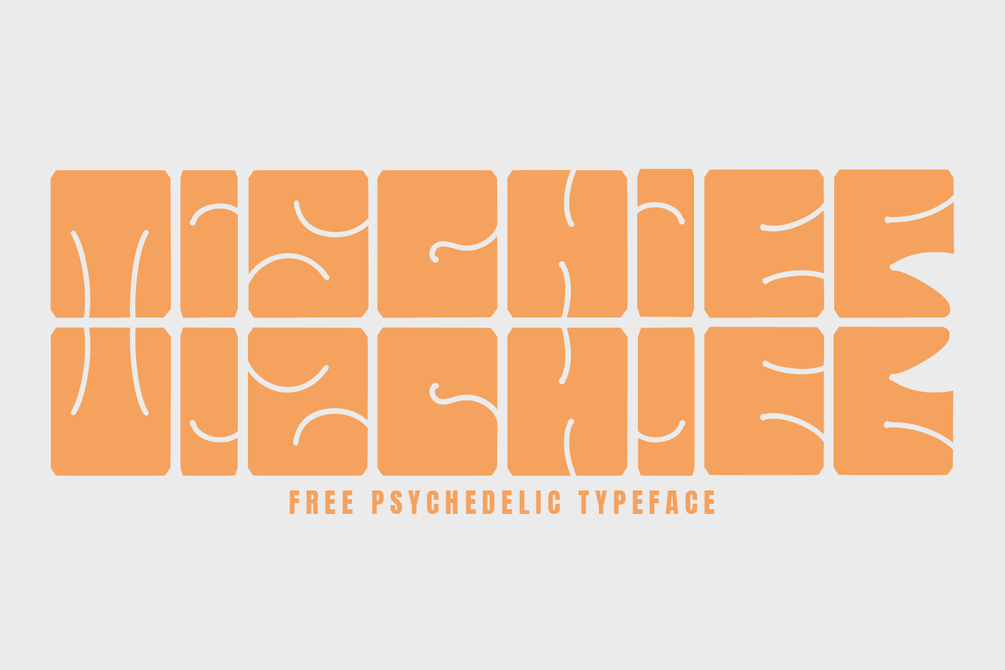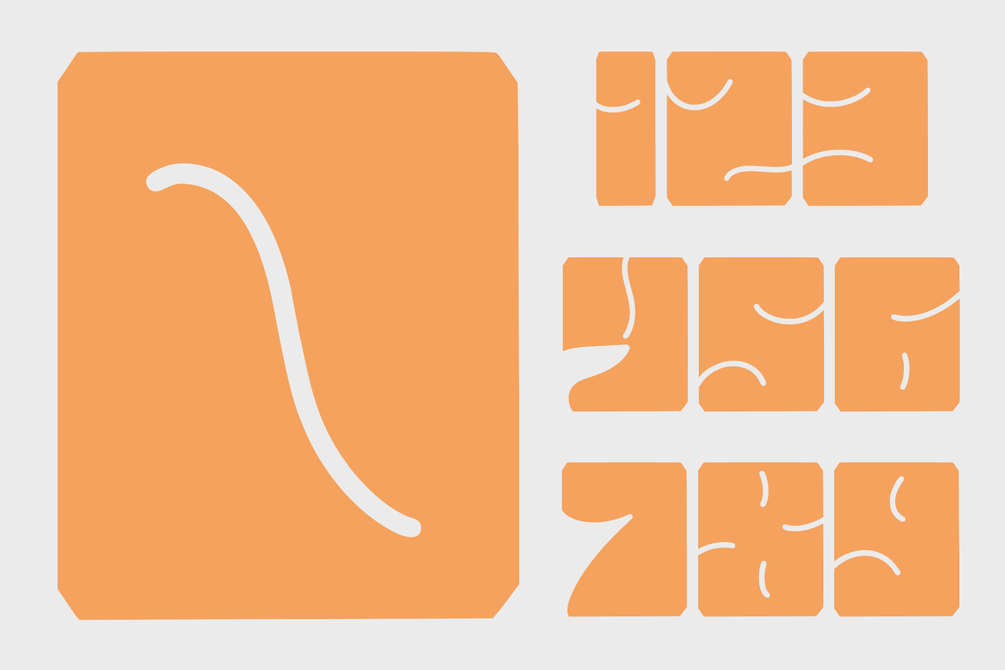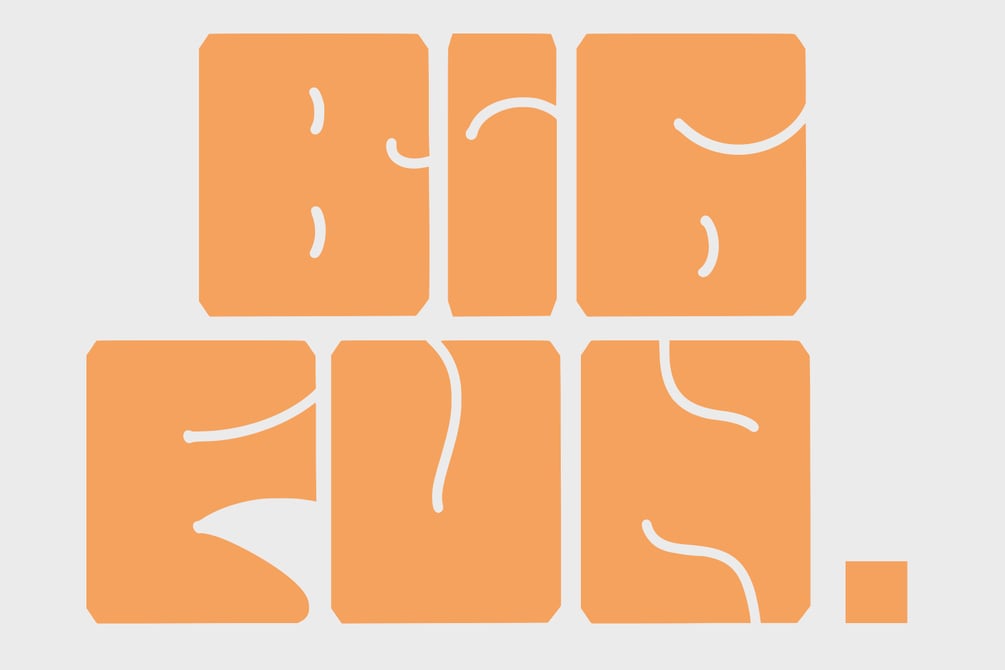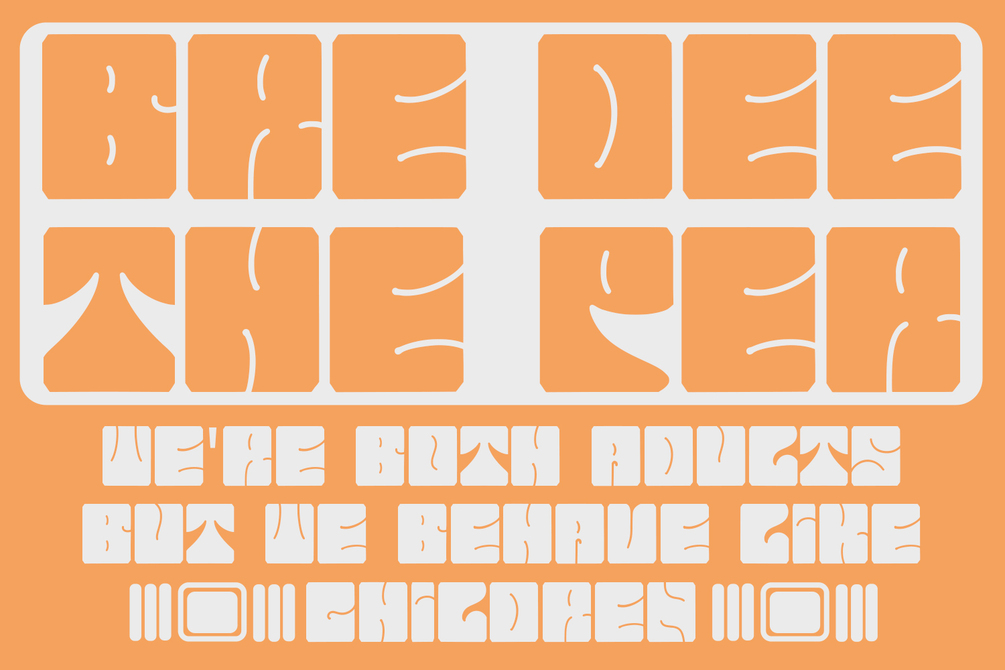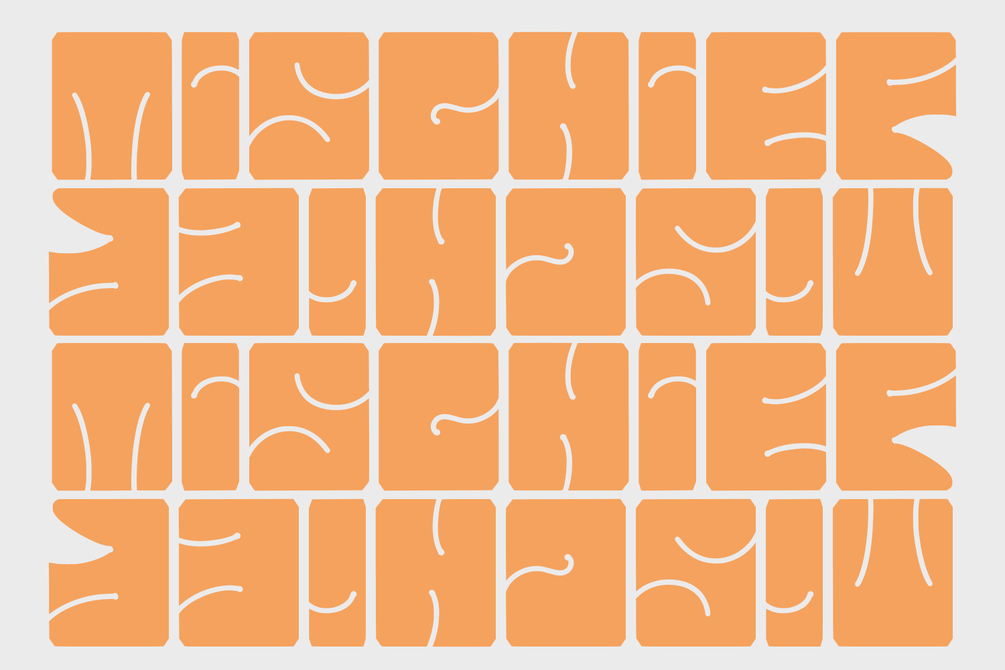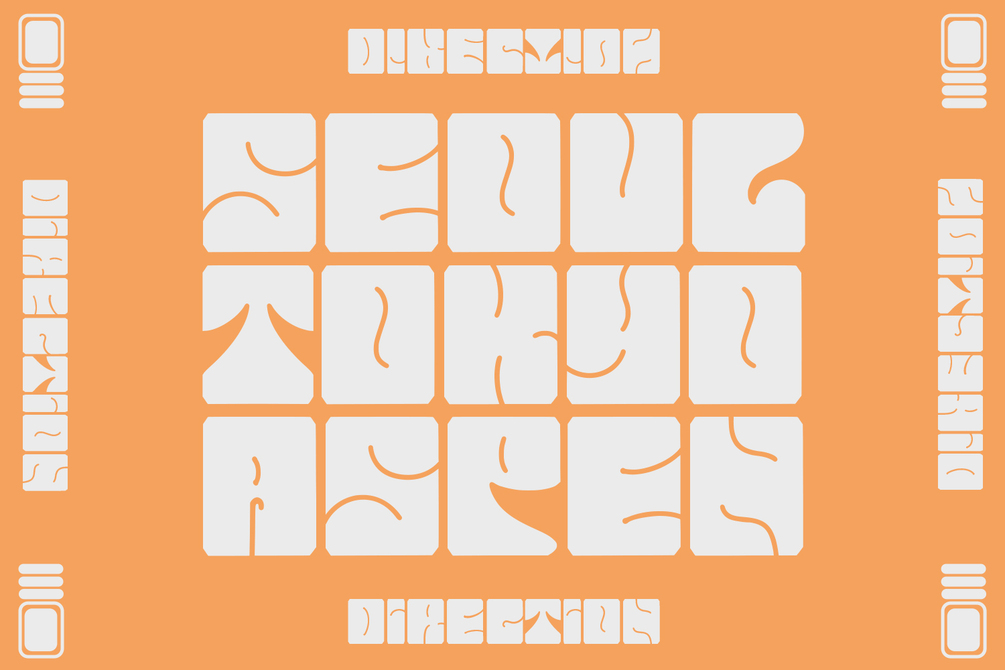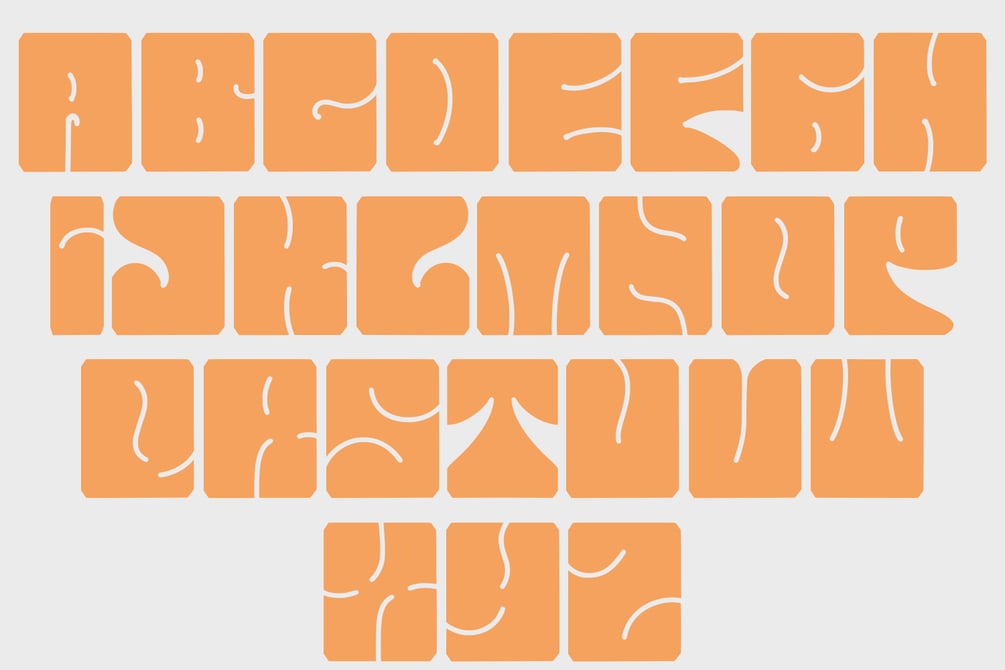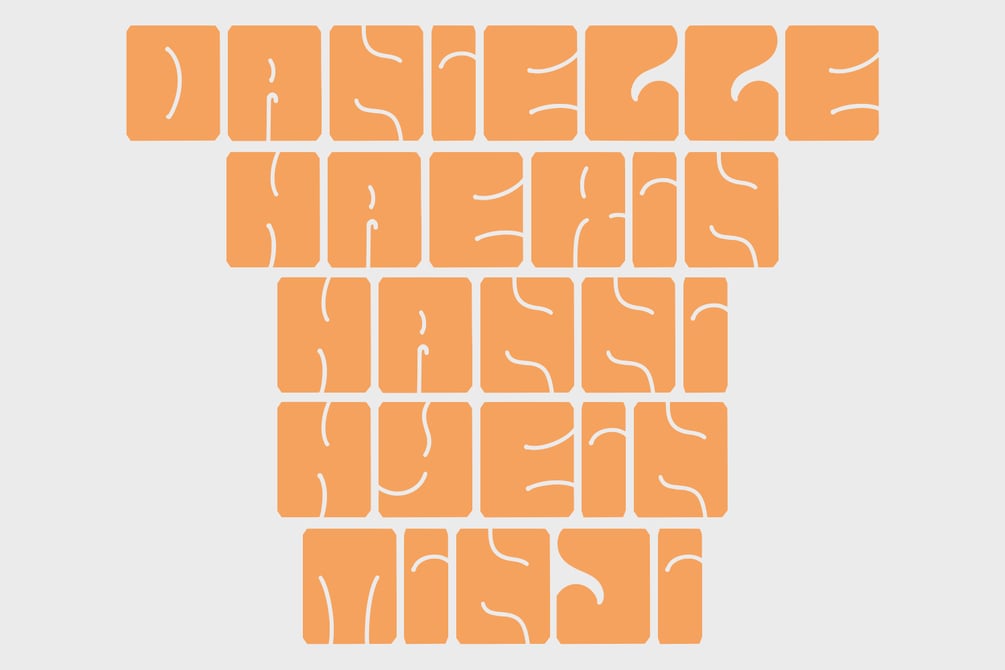
Mischief Typeface
Mischief is Psychedelic typeface refers to a style of typography that emerged in the 1960s during the height of the counterculture movement. It is characterized by its bold, vibrant colors, and graphic designs that incorporate abstract shapes, curves, and patterns. The psychedelic typeface is often associated with the mystical and surreal since it draws inspiration from altered states of consciousness experienced through the use of psychedelic drugs.
It also incorporates a variety of lettering techniques such as bending, twisting, and outlining. The typefaces have a distinctive look that evokes a sense of free-spirited creativity and experimentation. Psychedelic typefaces can be used for various purposes, including posters, album covers, and promotional materials.
To sum it up, psychedelic typeface is a unique style of typography that was popularized during the 1960s and is still relevant today. It incorporates bold colors, graphic designs, and a range of lettering techniques that create an eye-catching and trippy aesthetic. It is a testament to the counterculture movement and the power of artistic expression.